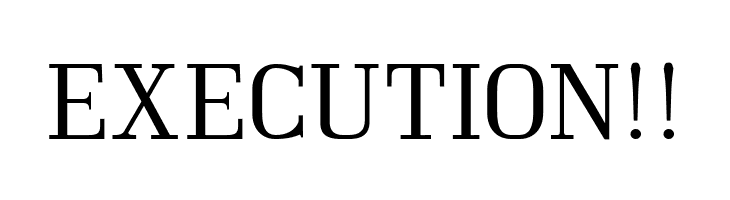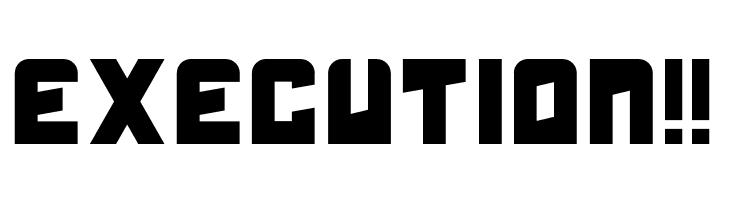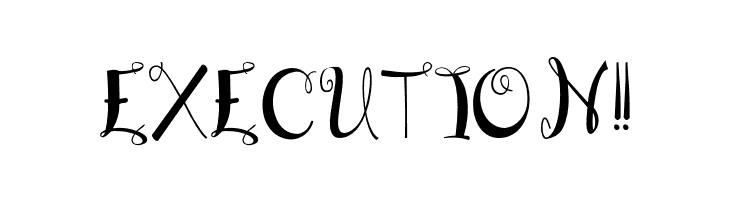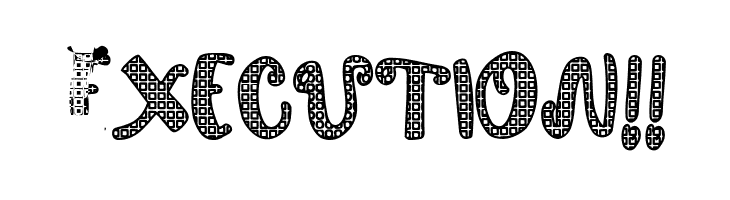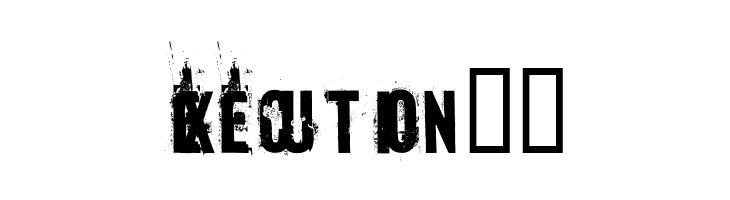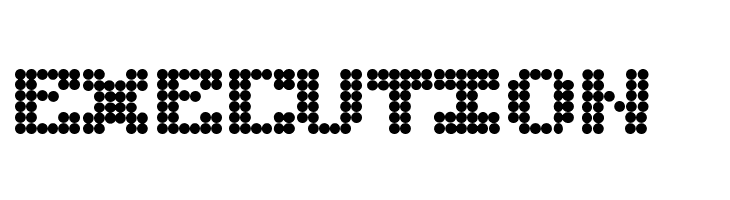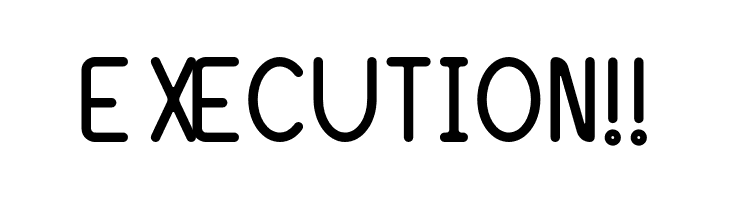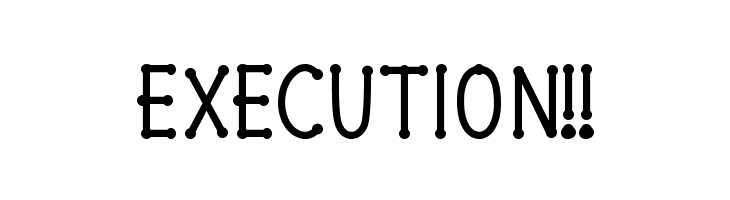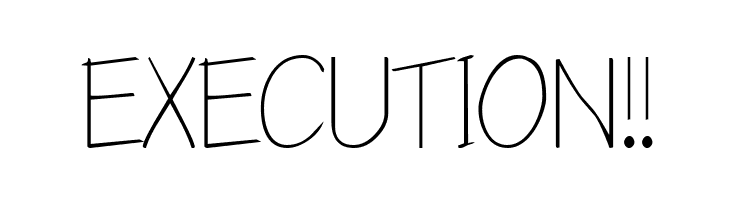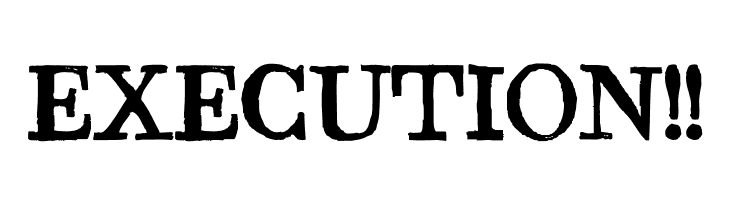
• Blooming Grove Alternate Bold
A playful, rounded font with bold, uniform strokes and a friendly appearance.
• Blooming Grove Bold
A playful, rounded font with smooth curves and consistent stroke width.
• Blowing
A decorative font with interconnected dots and splatters, resembling ink blots.
• Bloxxy
A bold, modern font with a unique striped pattern and rounded characters.
• blueBaby
• BlueEyes
A whimsical and elegant font with intricate swirls and loops.
• BlueMoonsByDay
Abstract, hand-drawn geometric display font with spherical motifs.
• BlueMoonsInverse
Abstract geometric display font with patterned circles and outlined squares.
• Blueprint
• Blumenbuch Beta
A bold, brush-style font with a hand-drawn, rustic appearance.
• BM ruby A12
A pixelated, decorative font with characters enclosed in a gear-like border, evoking a retro digital feel.
• BoatsShipsAhoi
A nautical dingbat font with ship and boat illustrations.
• BoatsTraces
A pictorial dingbat set of diverse boat and ship illustrations.
• Bobobos
A playful, checkered decorative font with bold, rounded characters.
• Bocklin
A bold, decorative font with whimsical and vintage elements.
• Bodidota
A classic serif font with high contrast and elegant serifs.
• Bodoni Hand
• BodonisBulemy
An elegant serif font with high contrast and sharp serifs.
• Bodonitown
A classic serif font with high contrast and elegant proportions.
• BodoniTwinsCaps
A bold, high-contrast font with elegant serifs and a luxurious style.
• BohrDonni
A sophisticated serif font with high contrast and elegant serifs.